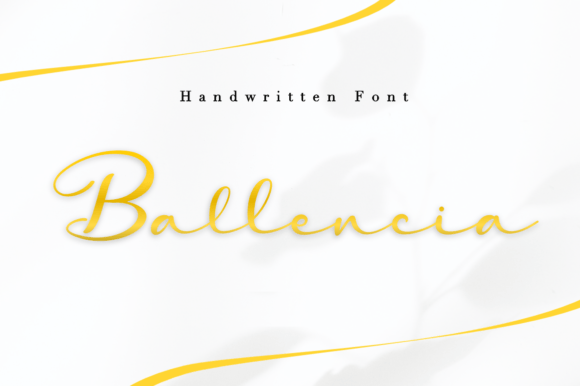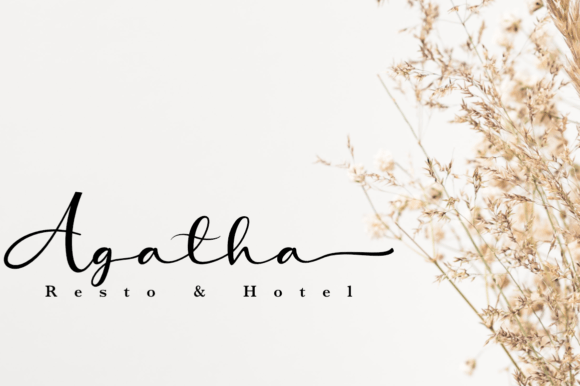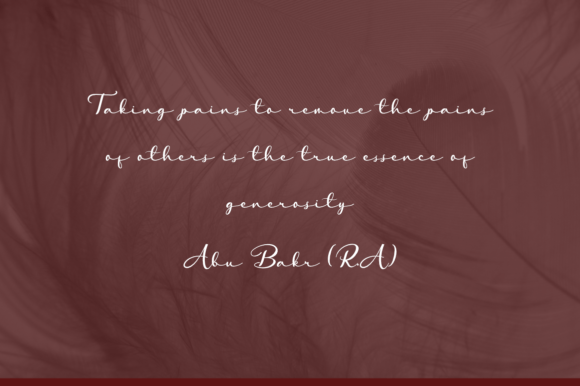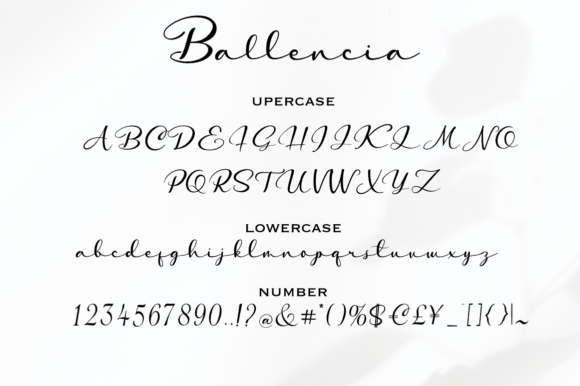
About Ballencia Font
Ballencia is a dazzling script font that boasts meticulous craftsmanship and intricate detailing. This font stands out for its elegance and sophistication, making it a remarkable addition to your font library. Its versatility and refined aesthetic make it a valuable asset capable of enhancing a wide range of creative projects.
The neatly crafted and highly detailed nature of Ballencia ensures that it can elevate any creation, regardless of the topic or theme. Whether you are working on branding, invitations, logos, packaging, or any other design project, Ballencia adds a touch of class and visual appeal.
The beauty of Ballencia lies in its ability to seamlessly blend into various design contexts. Its versatile nature makes it suitable for both formal and creative applications. Whether applied to business materials, wedding invitations, or artistic endeavors, Ballencia adapts with ease, demonstrating its versatility across different design requirements.
Incorporating Ballencia into your projects is an invitation to infuse them with a sense of elegance and sophistication. This script font becomes a powerful tool, ready to enhance the visual impact of your designs and add a touch of refinement to your creative expressions.
In summary, Ballencia is more than just a font; it’s a dazzling and versatile design asset that brings sophistication to your projects. With its meticulous detailing and elegant script style, Ballencia stands ready to be the perfect companion for a variety of creative endeavors, making your designs refined, visually stunning, and uniquely crafted.